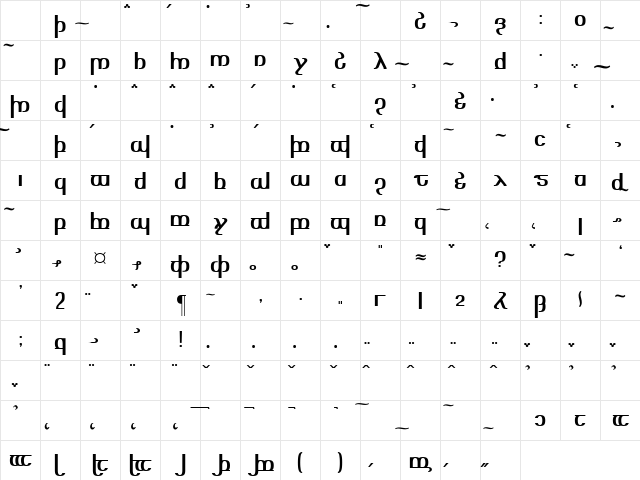
TengwarOptimeDiagon Regular
Foundry: Peter Wiegel
Designer: Peter Wiegel
Design Context for TengwarOptimeDiagon
TengwarOptimeDiagon is a composed and adaptable typeface that performs quietly and consistently across a wide range of design contexts.
Who designed the TengwarOptimeDiagon Regular font?